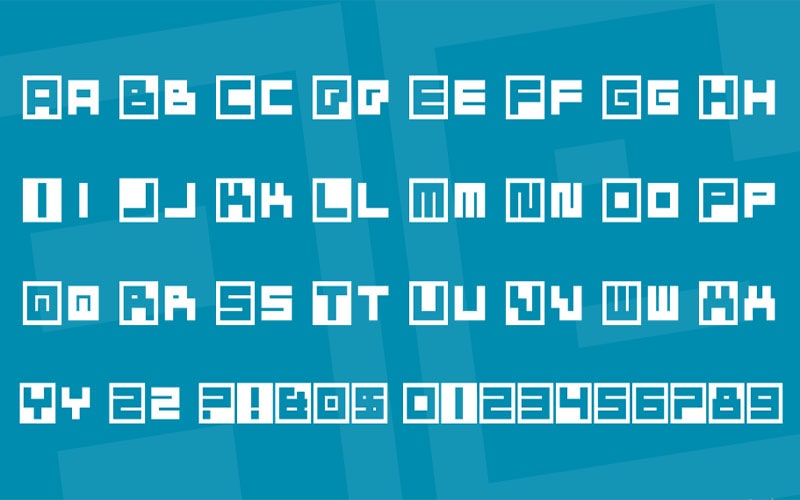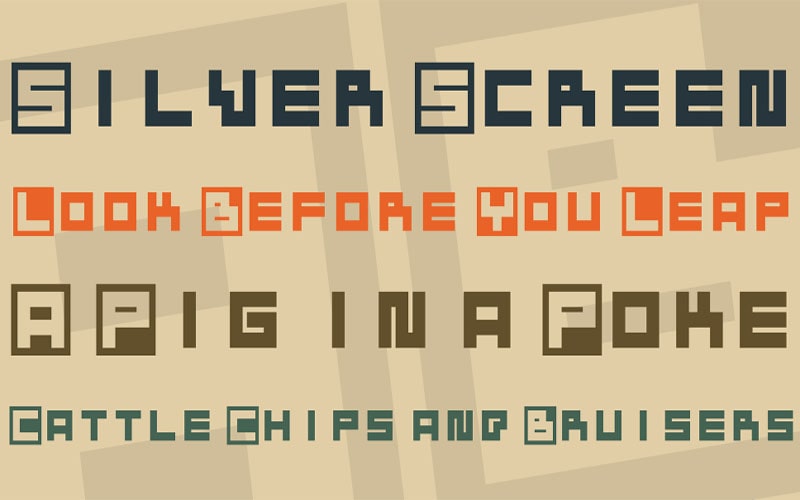
Bustin Jieber Font is a bold and playful typeface designed to capture attention with its distinctive and energetic style. Chequered Ink took charge of designing this font for the first time.
It draws inspiration from pop culture and contemporary design trends, making it a great choice for projects that need a fun, modern, and impactful look.
Generally, Chequered Ink is known for its creativity and ability to blend modern aesthetics with playful elements. This wide character set ensures versatility and adaptability for various text-based applications.
This Font includes a comprehensive character set, including Uppercase and lowercase letters, Numerals, Punctuation marks, Special characters, and accents.
| Style: | Techno, Square, Typeface |
This Font typically comes in a single, dynamic font style. It features strong, clean lines and a slightly edgy feel, combining elements of both handwritten and digital design for a unique visual appeal.